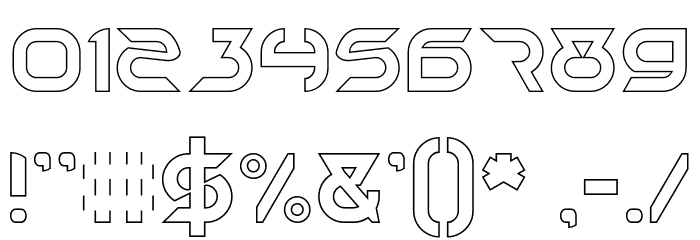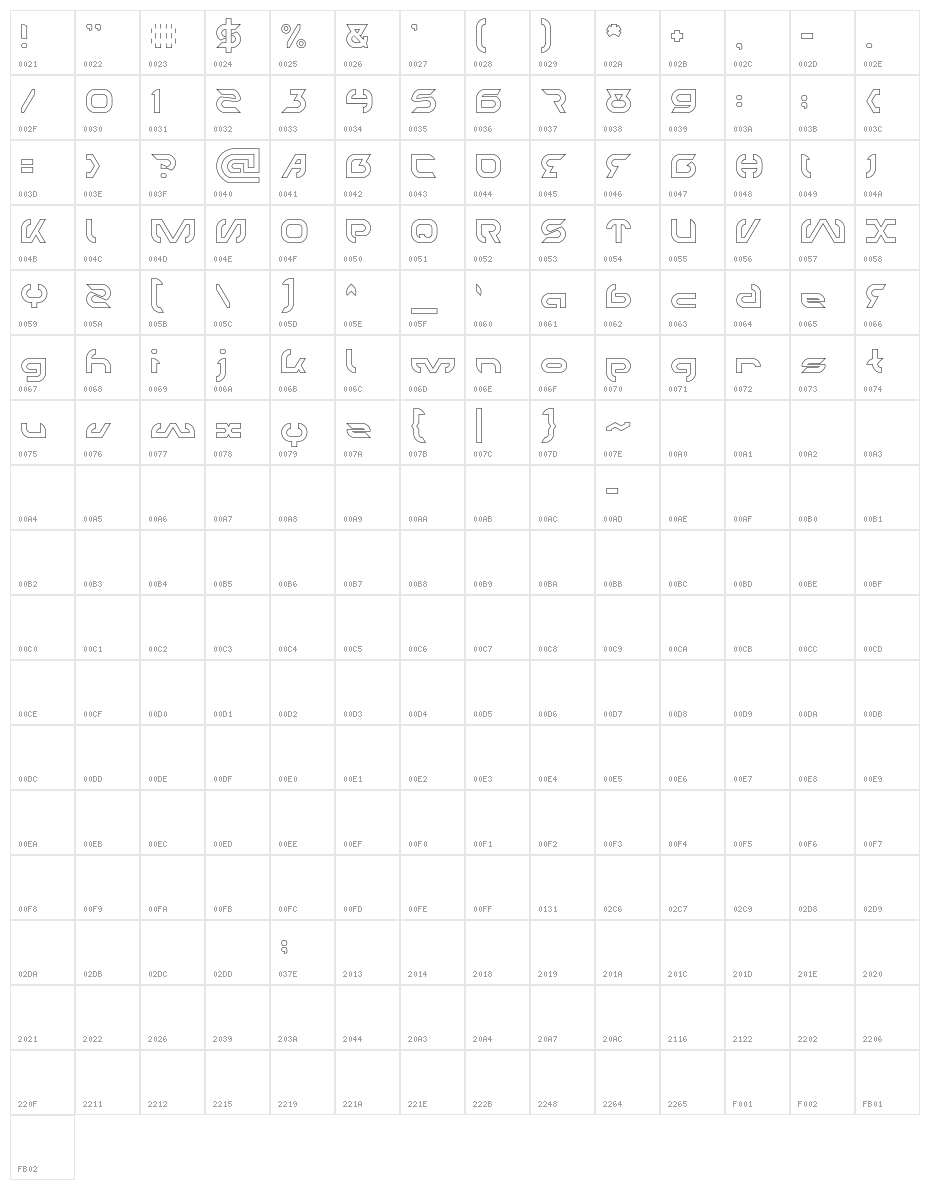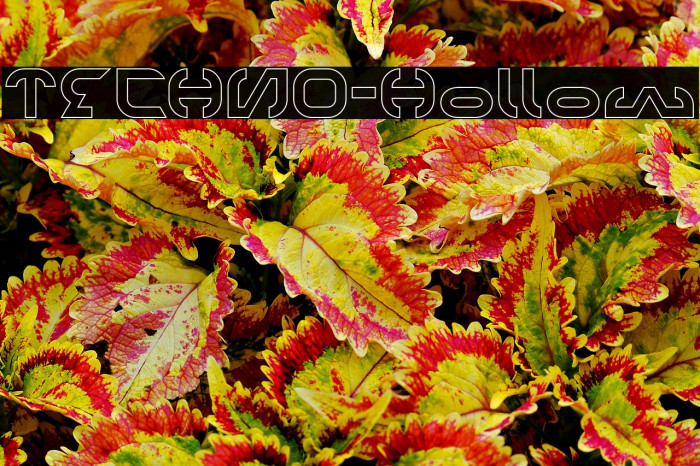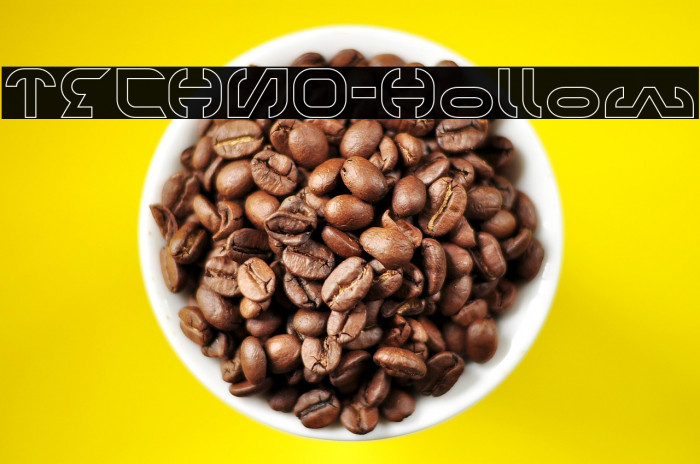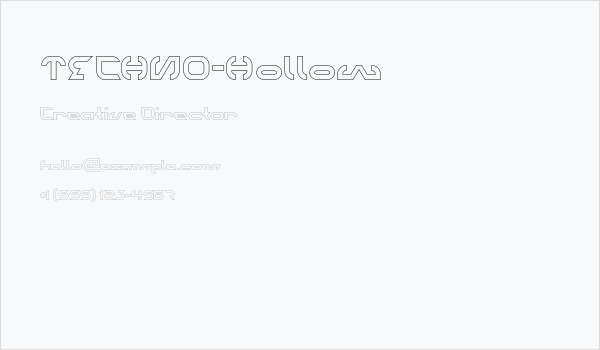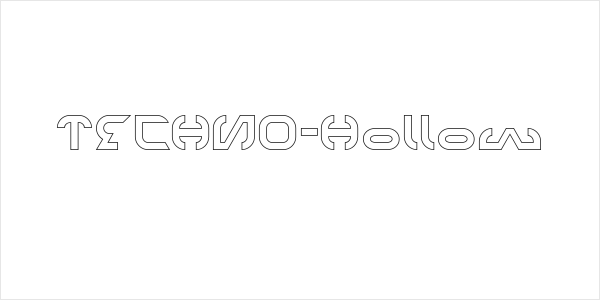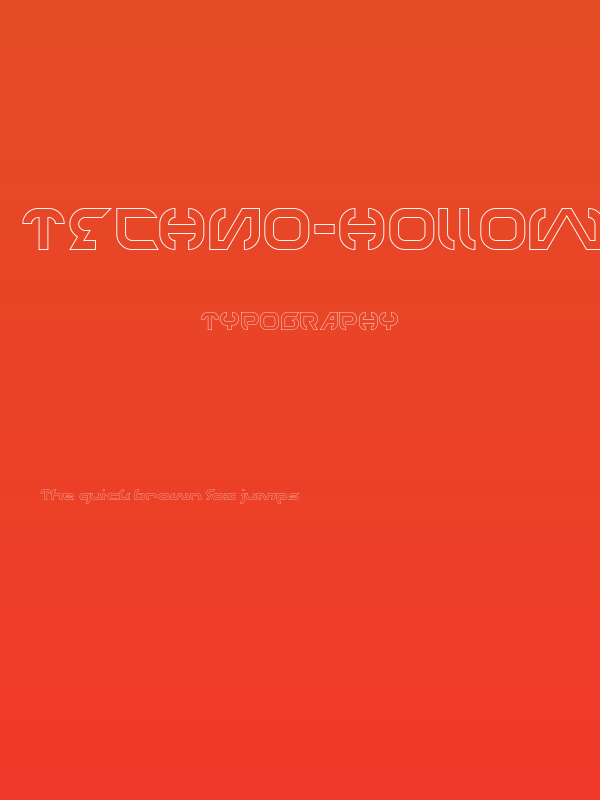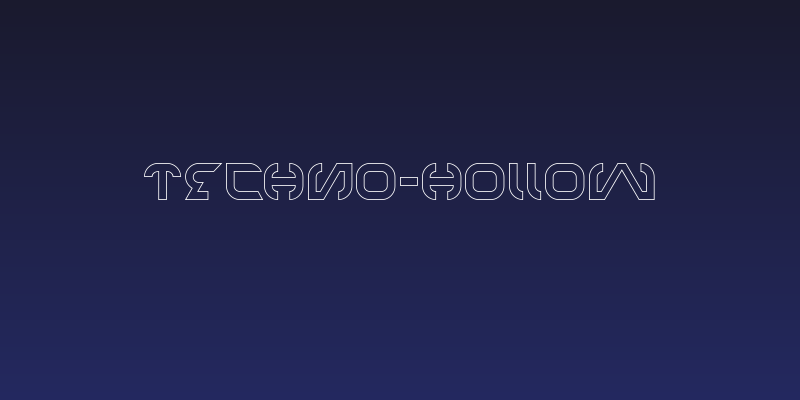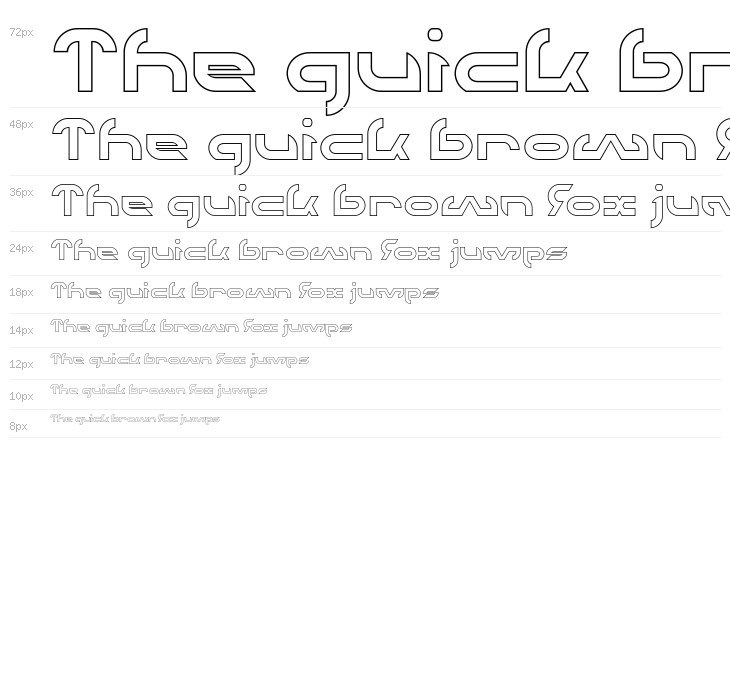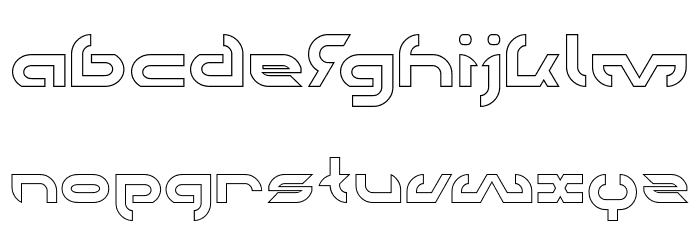
TECHNO-Hollow Font
TECHNO-Hollow Description
This font features a futuristic, hollow design with sharp angles and geometric shapes. Each character is outlined, creating a sense of depth and dimension. The uppercase and lowercase letters maintain a consistent style, emphasizing a techno-inspired aesthetic. The numbers and special characters follow the same design principles, ensuring uniformity across the font. Its unique style makes it stand out, ideal for projects that require a modern and edgy look.